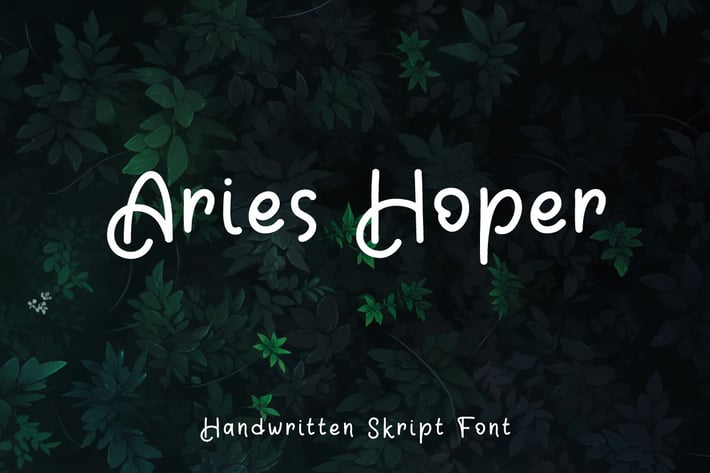
Aries Hoper - Script font
Hello! Aries Hoper is a handwritten script font.
Aries Hoper can be used in any works such as comic book, poster, school, flyer, book title, advertisement, social media content, logo and many more.